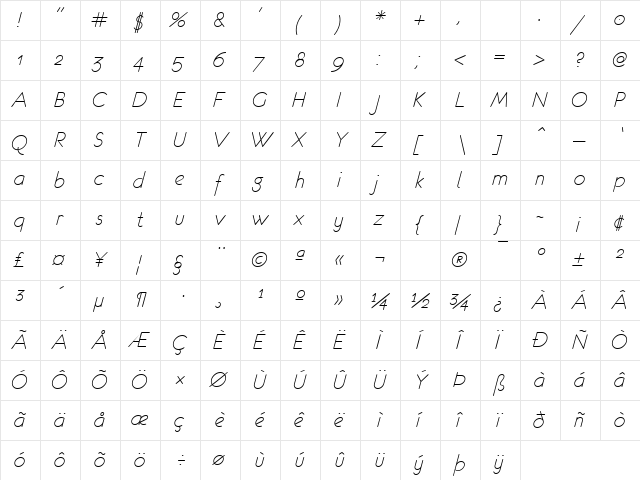
eurofurence classic light italic Font Preview
Design Context for eurofurence classic light Typeface
eurofurence classic light wears its vintage influences proudly, with letterforms that recall mid-century signage, classic packaging, and nostalgia-driven design. The slanted form adds forward momentum and visual energy. The delicate stroke weight brings airiness and refinement to layouts.
Ideal for diner signage, record shop branding, 70s/80s-themed projects, and heritage product labels.
Font Pairing: Combine eurofurence classic light with a simple slab or neutral sans — period-accurate companions reinforce the vintage feel without competing for attention.
Pro Tip: Lean into eurofurence classic light's period character by pairing it with aged paper textures, muted colour palettes, and vintage illustration styles.